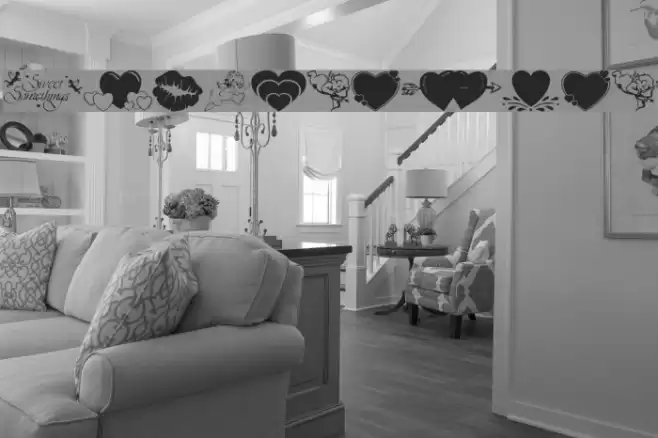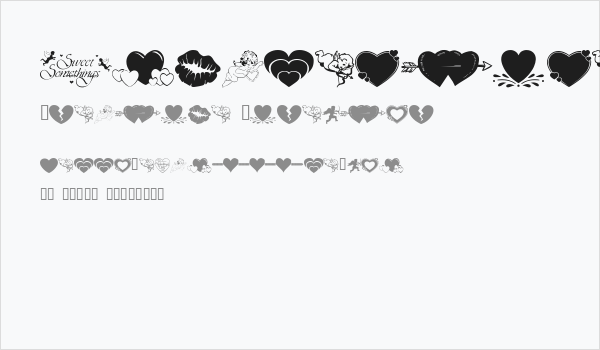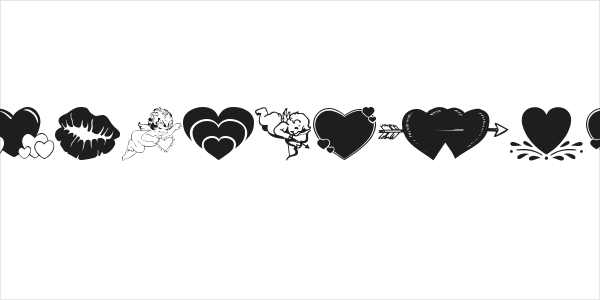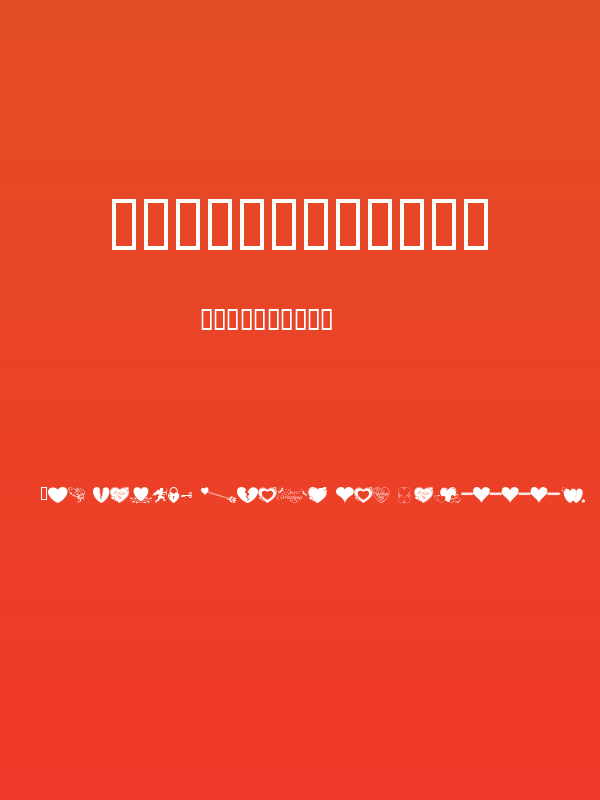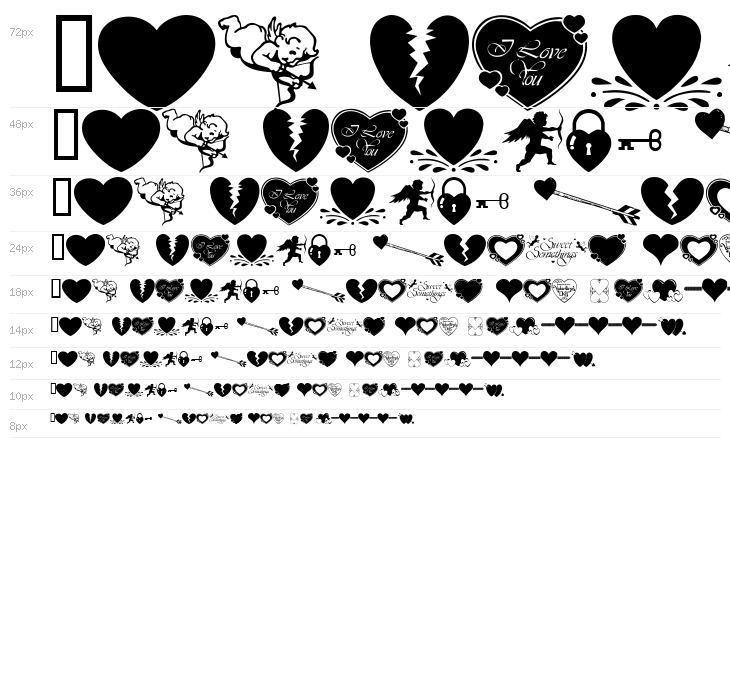
This is a decorative font that features a variety of romantic and whimsical symbols instead of traditional alphanumeric characters. The design includes cherubs, arrows, hearts, and other love-themed icons, making it ideal for Valentine's Day or romantic projects. The symbols are bold and visually striking, with a playful and artistic style that captures the essence of love and affection. The font is not suitable for standard text but serves as a creative tool for adding decorative elements to designs.
| Use Case | Logos, Decorative elements |
| Proposed Projects | Ideal for Valentine's Day cards, wedding invitations, romantic posters, and love-themed crafts. |